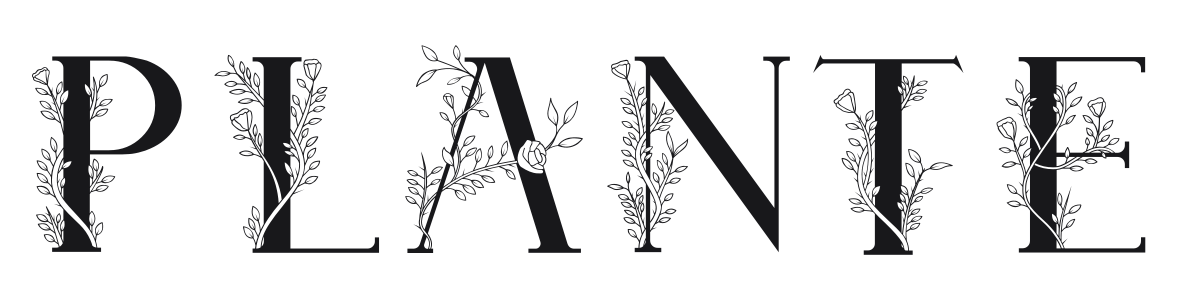
Plante
Plante is a decorative serif display font where botanical illustrations grow directly from the letters, threading branches, leaves, and tiny florals through every stroke. The underlying structure is a classical high-contrast Roman uppercase, which gives the ornate detail a strong skeleton to lean on. It suits any project that needs a handcrafted, nature-inspired character — packaging, wedding stationery, editorial headers.